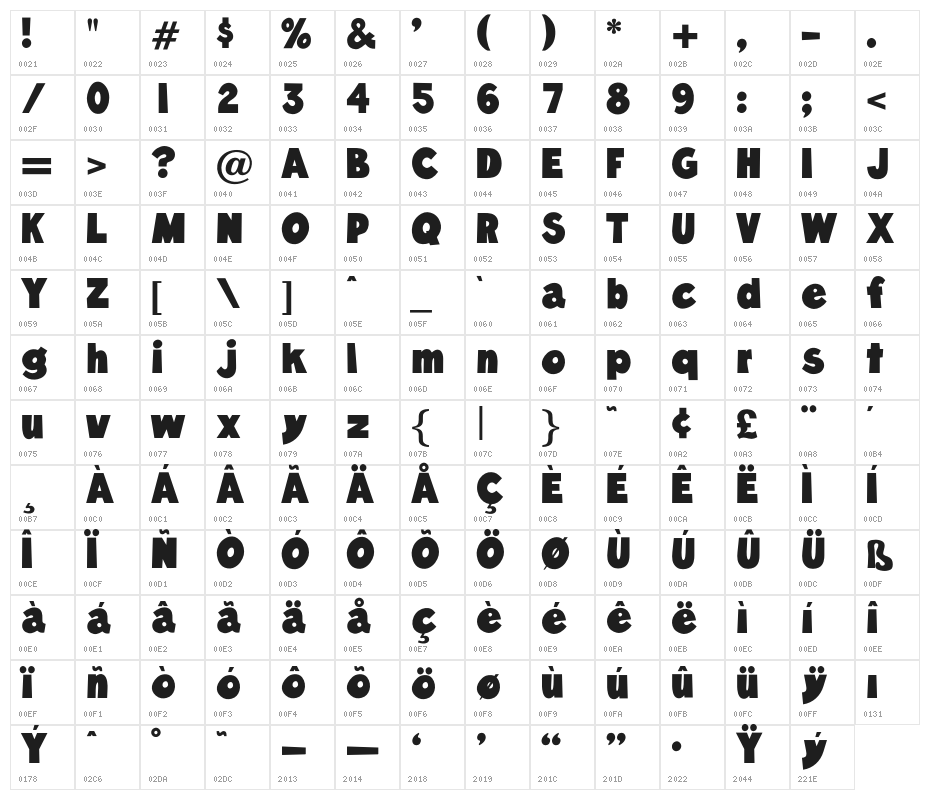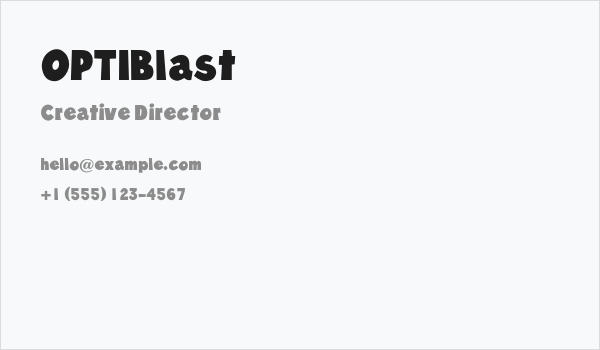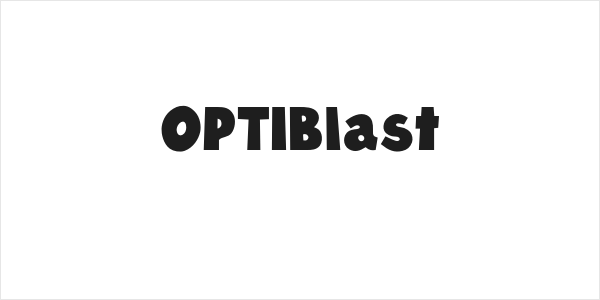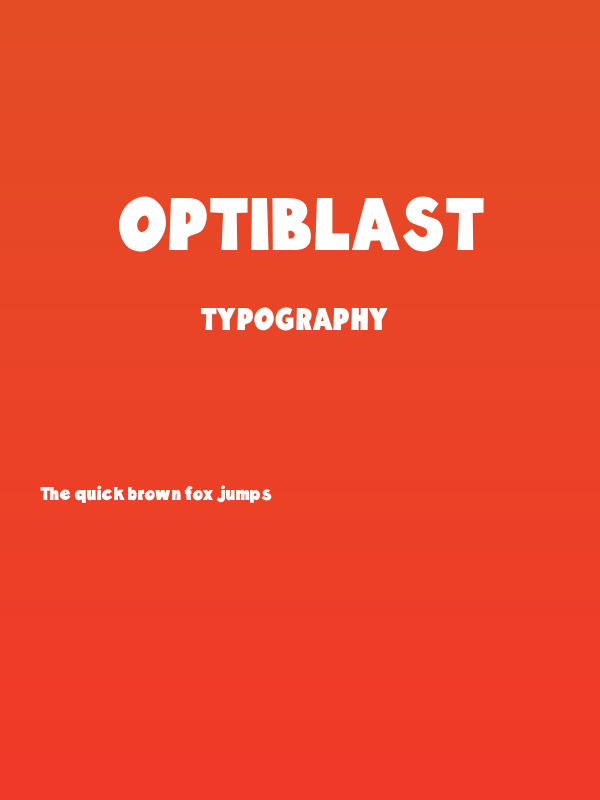
OPTIBlast Font
OPTIBlast Description
This bold and impactful font features thick, heavy strokes that create a strong visual presence. The characters are designed with a playful and slightly exaggerated style, making them ideal for attention-grabbing headlines and titles. The uppercase letters are particularly striking, with a uniform height that ensures consistency across the board. The lowercase letters maintain the same boldness, offering a cohesive look when mixed with uppercase. Numbers and special characters follow the same design principles, ensuring versatility across different uses. The overall appearance is modern and dynamic, with a touch of whimsy that adds character to any project.
| Proposed Projects | Ideal for posters, advertising, branding, and any project requiring a bold statement. |